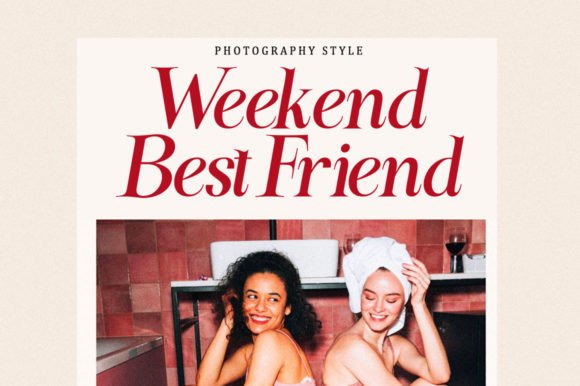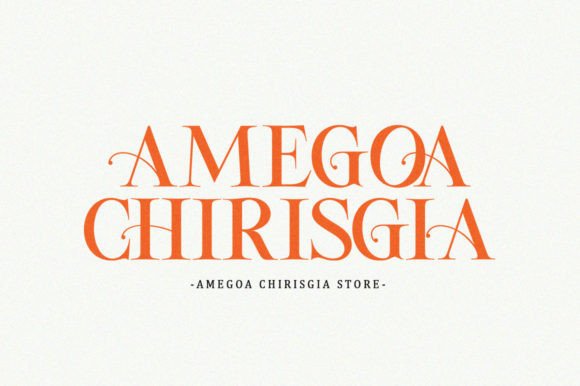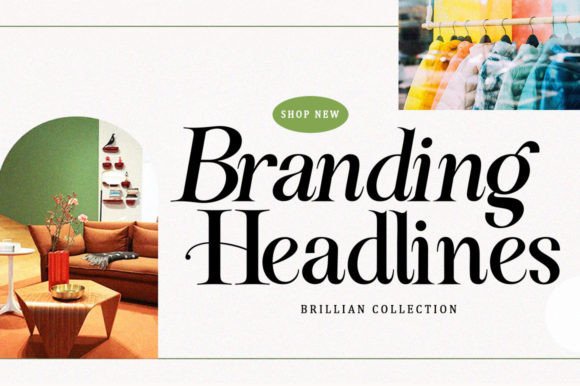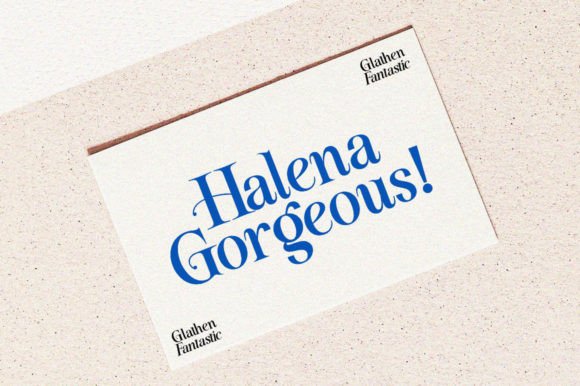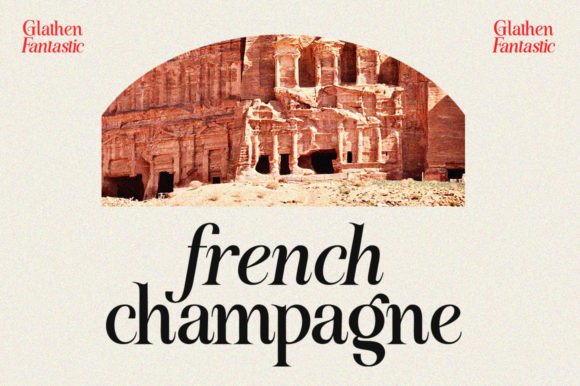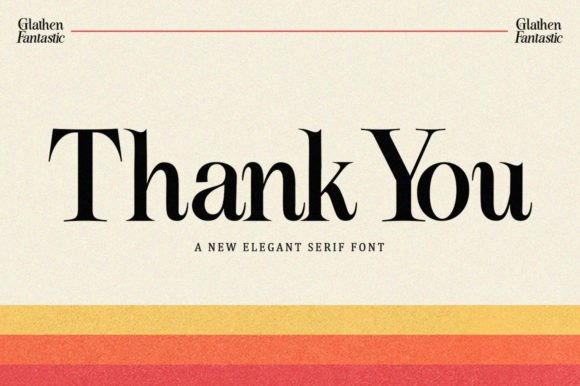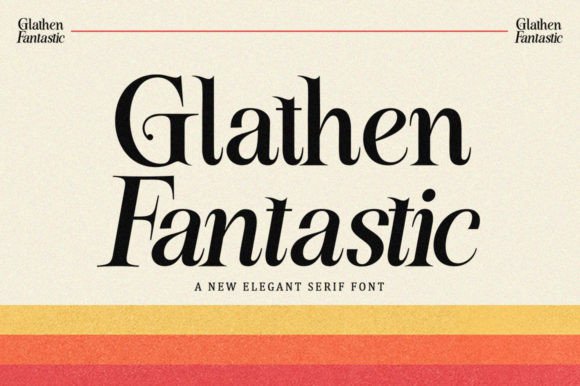
Introducing Glathen Fantastic: The Elegant Serif Font for Luxurious Designs
Are you looking for a font that exudes luxury, style, and sophistication? Look no further than Glathen Fantastic, the newest addition to the world of elegant serif fonts. Designed to elevate your projects to new heights, Glathen Fantastic is perfect for designers and crafters seeking to add a touch of refinement to their work.
What is Glathen Fantastic?
Glathen Fantastic is a meticulously crafted serif font that boasts a classic, timeless aesthetic. Its elegant lines, precise curves, and refined details make it an ideal choice for projects that demand a high level of sophistication. Whether you’re working on logotypes, branding, monograms, wedding invitations, blog headlines, or any other design project, Glathen Fantastic is sure to impress.
Key Features of Glathen Fantastic
• Elegant Serif Design: Glathen Fantastic features a traditional serif design with a modern twist, making it perfect for projects that require a touch of luxury and style.
• Wide Language Support: This font supports a wide range of languages, including Armenian, Baltic, Central/Eastern Europe, Elymaic, English, Ethiopic, Georgian, Old Hungarian, Romanian, Southeast Asia, and Western Europe.
• Versatile: Glathen Fantastic can be used for a variety of design projects, from logotypes and branding to wedding invitations and blog headlines.
Why Choose Glathen Fantastic?
There are many fonts available that claim to offer elegance and sophistication, but Glathen Fantastic stands out from the rest. Here are just a few reasons why:
• Unique Design: Glathen Fantastic boasts a unique design that sets it apart from other serif fonts. Its elegant lines and refined details make it perfect for designers seeking to create luxurious designs.
• High-Quality: This font is designed to deliver high-quality results, even at small sizes. Whether you’re working on a business card or a billboard, Glathen Fantastic will look stunning.
How to Use Glathen Fantastic
Glathen Fantastic is perfect for a wide range of design projects. Here are just a few ideas to get you started:
• Logotypes and Branding: Use Glathen Fantastic to create a luxurious logotype or brand identity that will elevate your business to new heights.
• Wedding Invitations: Add a touch of elegance to your wedding invitations with Glathen Fantastic. Its refined design makes it perfect for formal events.
• Blog Headlines: Use Glathen Fantastic to create stunning blog headlines that will grab the attention of your readers.
Get Inspired with Glathen Fantastic